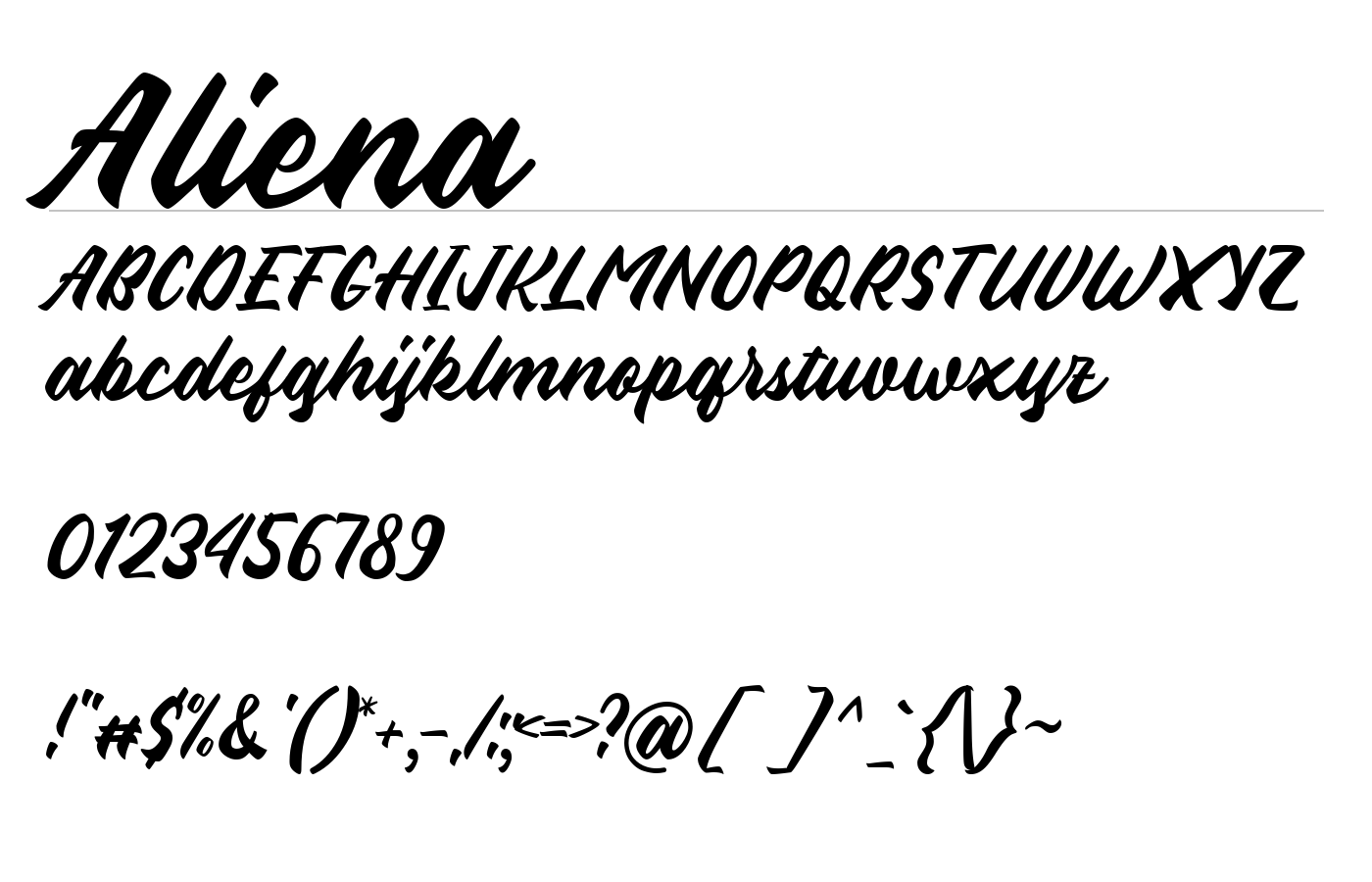
Aliena is a bold, brush-style script font with a lively and energetic feel, characterized by smooth, flowing strokes and a moderate contrast between thick and thin lines. Its slightly condensed letterforms and casual calligraphic style make it an excellent choice for branding, packaging, and headlines that seek to convey creativity, warmth, and a handcrafted touch. This font works particularly well in design projects aiming for a modern yet approachable personality, such as fashion, lifestyle, or artistic ventures.
Aliena Font
About Aliena Font
| Font family | Aliena Font |
| Designer | Rifki; Situjuh Nazara |